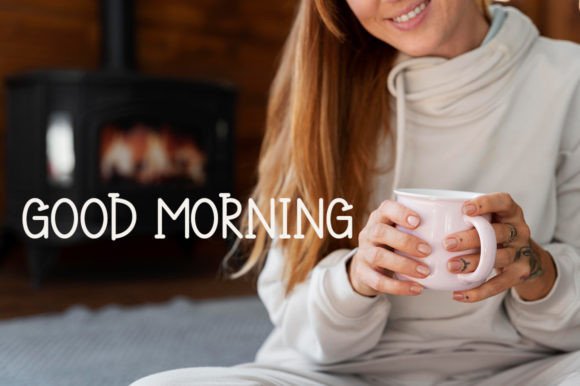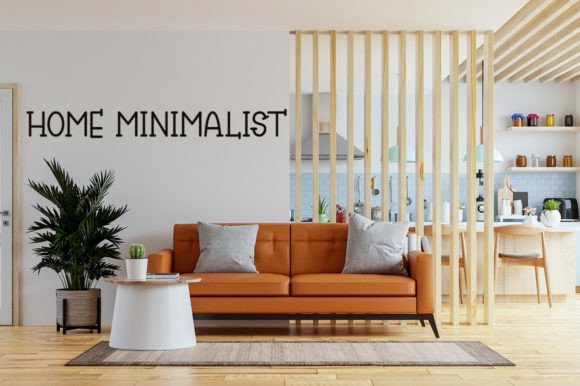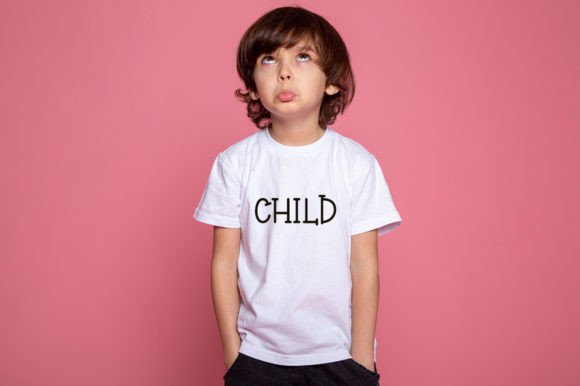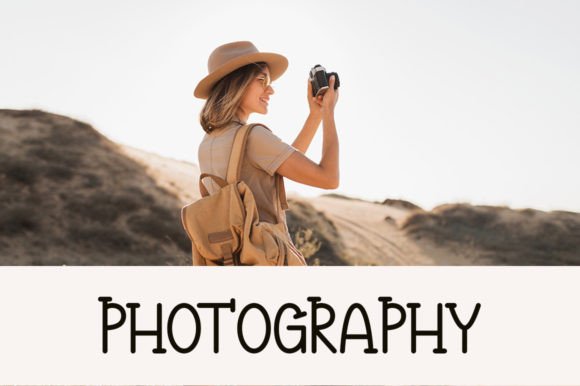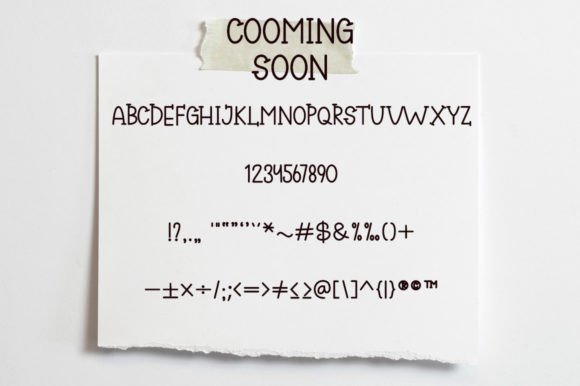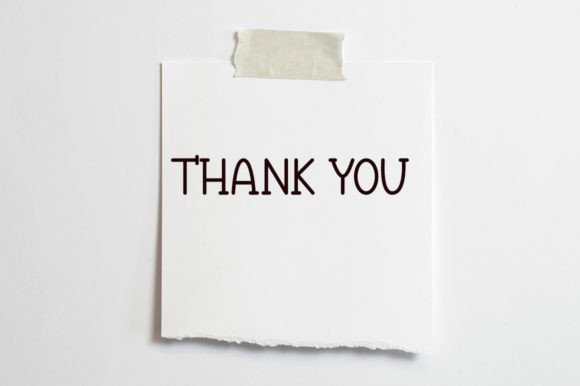
Cooming Soon Font: Elevate Your Designs with a Touch of Minimalist Elegance
Are you on the hunt for a font that embodies simplicity, elegance, and a dash of modern flair? Look no further than the Cooming Soon Font. This beautifully crafted, minimalist, and neat handwritten font is poised to revolutionize the way you approach your design projects. With its versatile nature, Cooming Soon can seamlessly integrate into an incredibly large set of projects, making it an indispensable tool in your creative arsenal.
The Essence of Cooming Soon Font
Cooming Soon is not just another font; it’s a design statement. Its minimalist and neat handwritten style lends a touch of sophistication and contemporary appeal to any project it’s a part of. Whether you’re crafting a logo, designing a website, creating engaging social media content, or working on a high-end branding project, Cooming Soon can elevate your design to new heights.
One of the standout features of the Cooming Soon Font is its incredible versatility. It’s a font that can easily transcend various design contexts, making it a perfect fit for:
- Logos and Branding: Create memorable and impactful logos that stand out in the crowd.
- Web Design: Enhance user experience with a clean and modern typography.
- Social Media Graphics: Make your social media posts and stories more engaging and visually appealing.
- Packaging: Add a professional and elegant touch to your product packaging.
- Advertising: Craft compelling ad copy that captures attention.
Why Choose Cooming Soon Font?
Choosing Cooming Soon for your design projects comes with a multitude of benefits:
- Unique Aesthetic: Stand out from the crowd with a unique and modern design.
- Legibility: Enjoy clear and easy-to-read text, perfect for body content or headings.
- Flexibility: Use it across various platforms and mediums without losing its charm.
Tips for Maximizing Cooming Soon
To get the most out of Cooming Soon Font, consider the following tips:
- Mix and Match: Combine Cooming Soon with other fonts to create contrast and hierarchy in your designs.
- Play with Sizes: Experiment with different font sizes to add emphasis and create visual interest.
- Adjust Line Spacing: Optimize readability by adjusting the line spacing according to your design needs.
Cooming Soon Font is more than just a typeface; it’s a creative partner that can help you bring your vision to life. Its minimalist and neat handwritten style, coupled with its versatility and ease of use, makes it an invaluable asset for designers and crafters. Whether you’re working on a personal project or a professional assignment, Cooming Soon is sure to add that extra oomph needed to make your designs stand out. So, why wait? Add Cooming Soon to your creative toolkit today and witness the transformation in your designs.